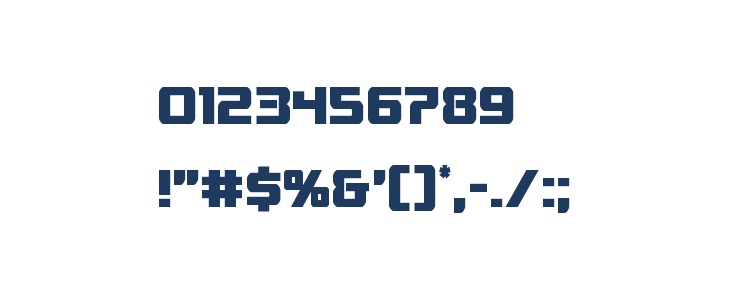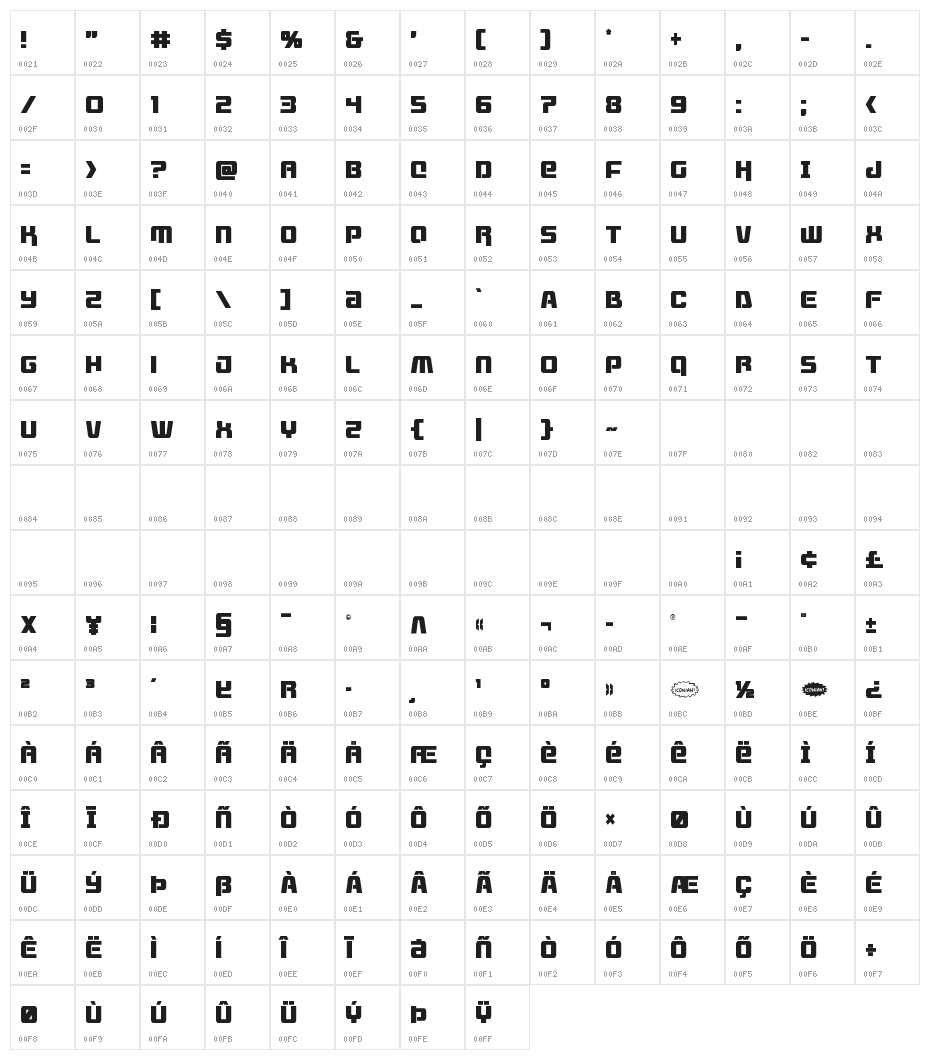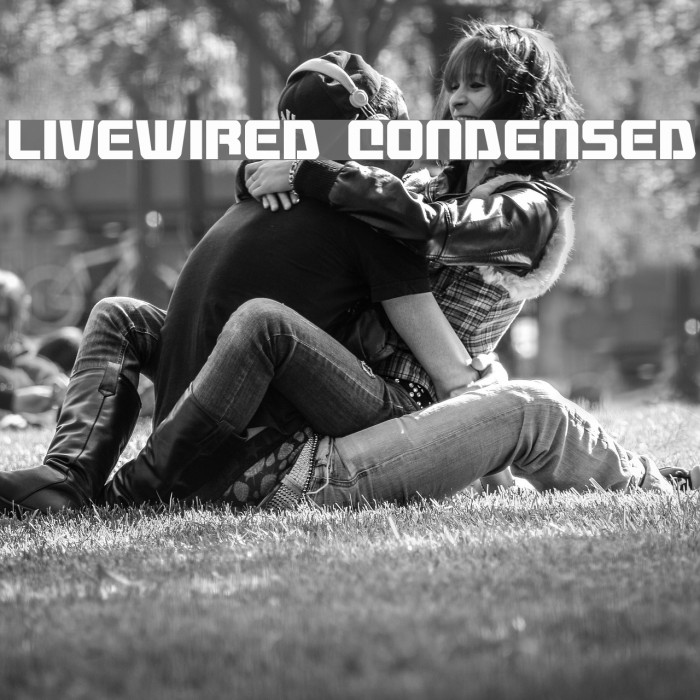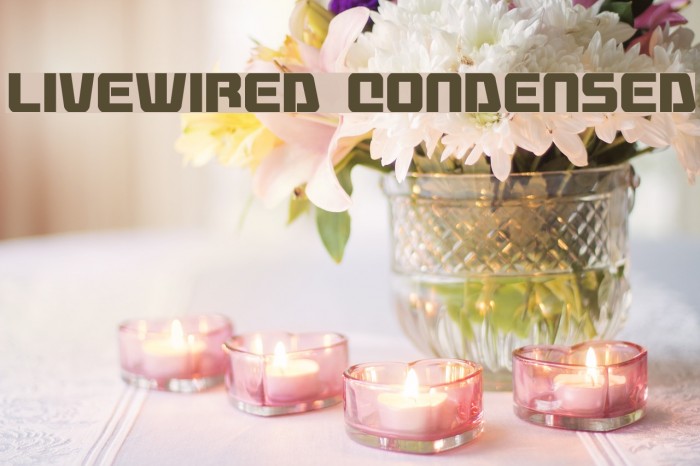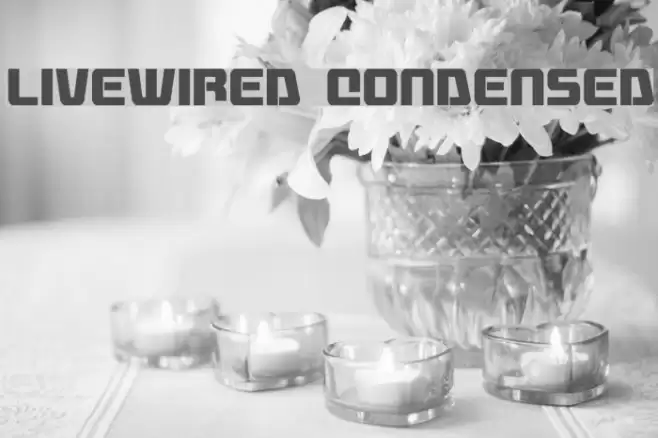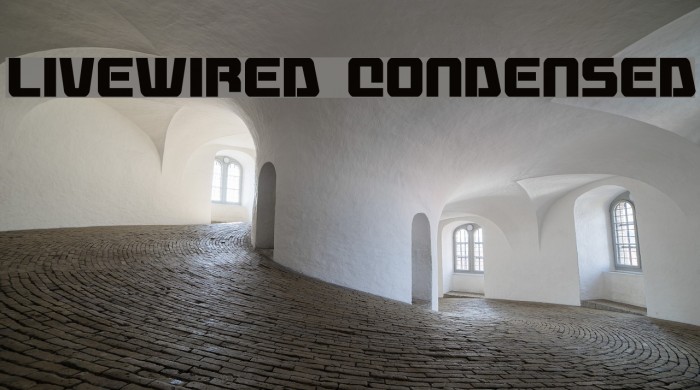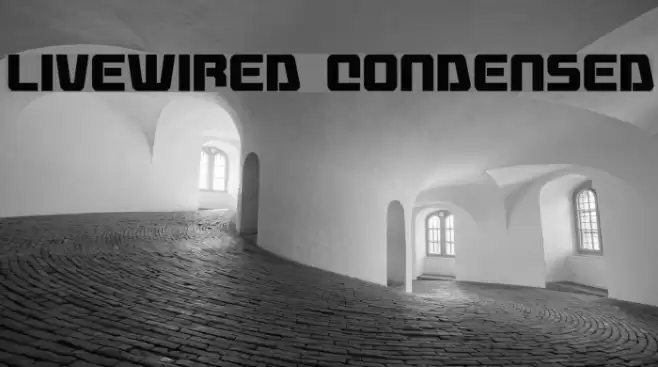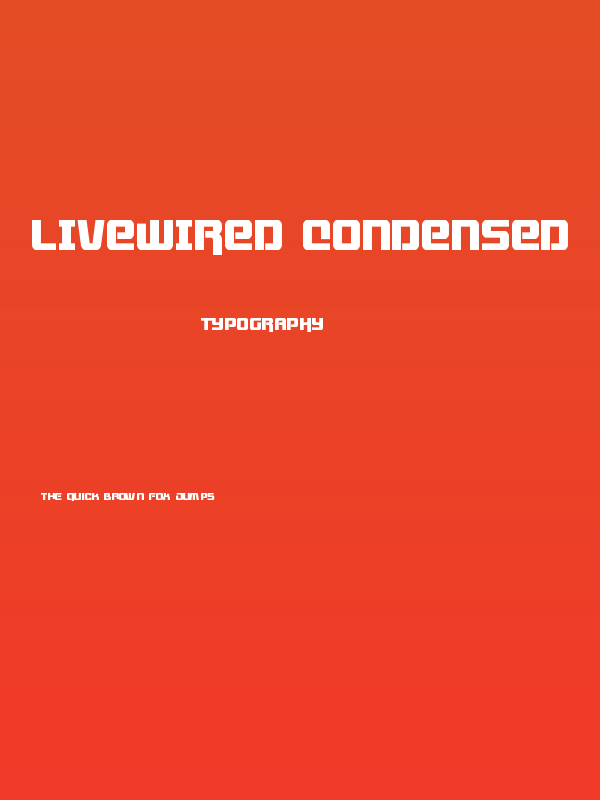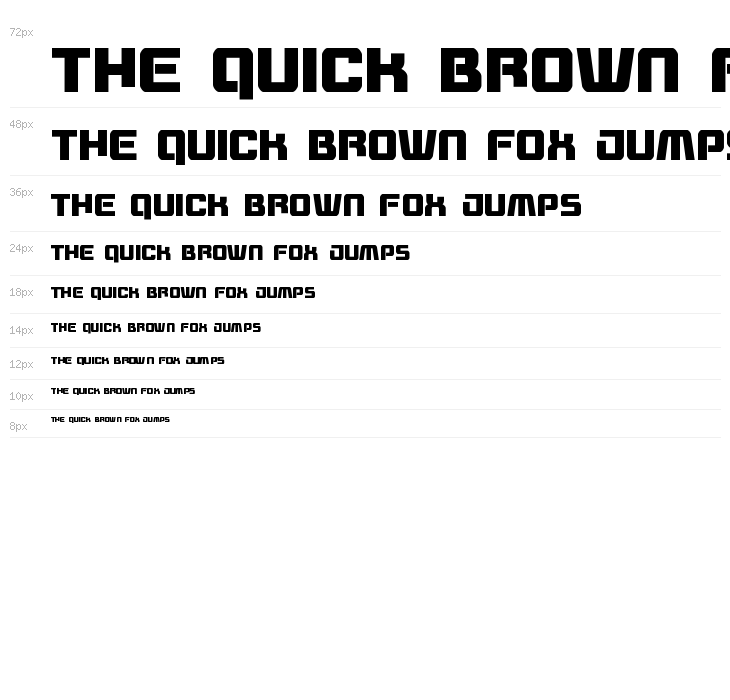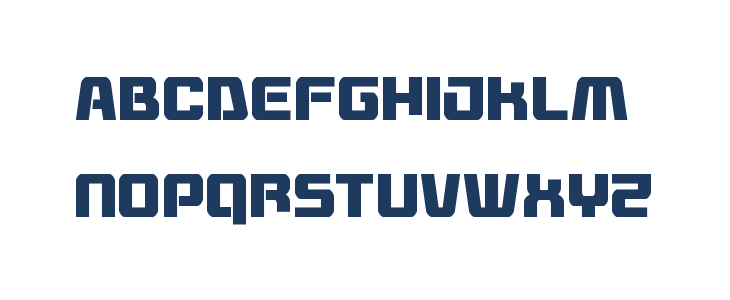
Livewired Condensed Font
This font features a bold and geometric design with a distinctly modern and futuristic aesthetic. The characters are constructed with thick, uniform strokes that create a strong visual impact. The condensed nature of the font allows for efficient use of space, making it ideal for headlines and titles where space is limited. The uppercase and lowercase letters maintain a consistent style, with sharp angles and a blocky appearance that enhances readability. Numbers and special characters follow the same design principles, ensuring a cohesive look across all text elements.
| Proposed Projects | Ideal for technology branding, sci-fi themed projects, posters, and video game interfaces. |